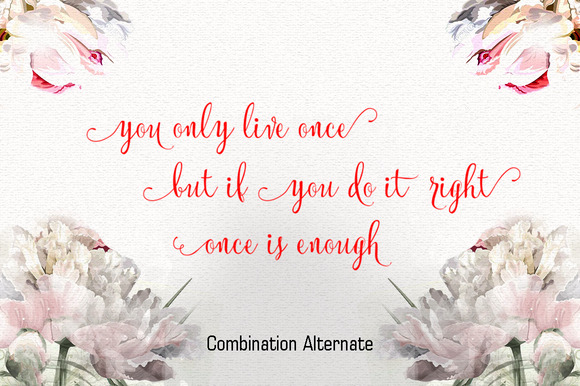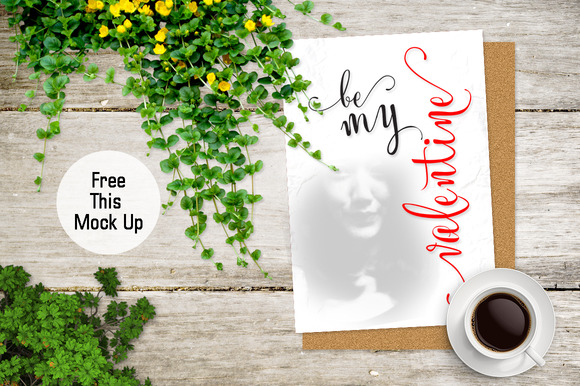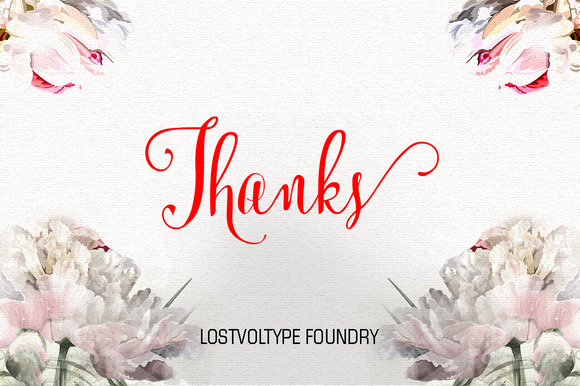
The Quest for the Perfect Font: Discovering Castrina
I still remember the frustration of scrolling through font after font, searching for the perfect one to bring my design project to life. As a designer, I’ve had my fair share of late nights and caffeine-fueled sessions, trying to find that one font that captures the essence of a brand or message. And then, I stumbled upon Castrina – a beautiful handwritten script font that has become a staple in my design toolkit.
What Makes Castrina Special?
Castrina is a hand-drawn, scanned, and digitized script font that exudes elegance and charm. Its versatility makes it perfect for a wide range of applications, including headings, logos, invitations, t-shirt designs, greeting cards, posters, labels, book covers, brochures, and much more!
An Honest Review of Castrina
• 💫 Beautifully crafted handwritten script with a personal touch
• 🌈 Extensive character set, including glyphs and stylistic alternates
• 🎨 Perfect for creating unique and eye-catching designs
• ⚠️ May not be suitable for very formal or corporate designs
• 🤔 Some users may find the font a bit too ornate for certain projects
The Story Behind Castrina
Castrina was created by a talented type designer who wanted to craft a font that would capture the essence of handwritten script. With a focus on elegance, legibility, and versatility, Castrina was born. The designer’s goal was to create a font that would be perfect for a wide range of applications, from formal invitations to playful t-shirt designs.
Q: What type of designs is Castrina best suited for?
A: Castrina is perfect for a wide range of designs, including headings, logos, invitations, t-shirt designs, greeting cards, posters, labels, book covers, brochures, and much more!
Q: Does Castrina support OpenType features?
A: Yes, Castrina supports OpenType features, including glyphs and stylistic alternates, which can be accessed in compatible design software.